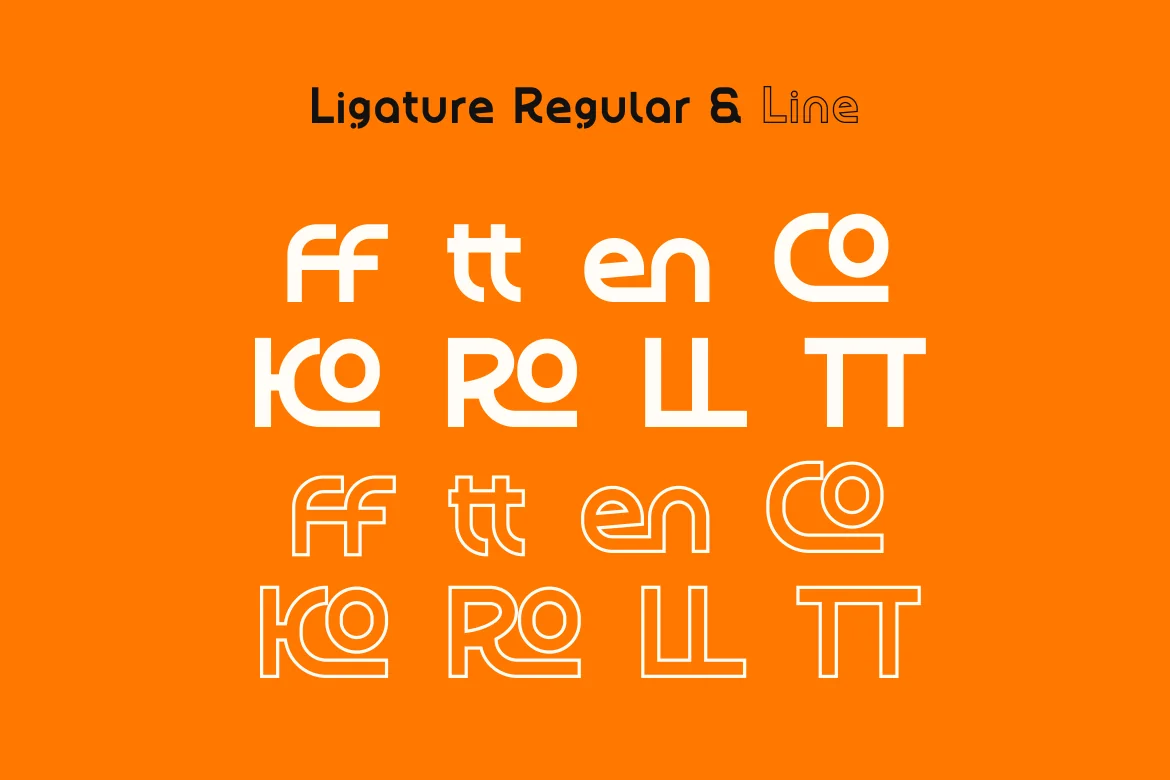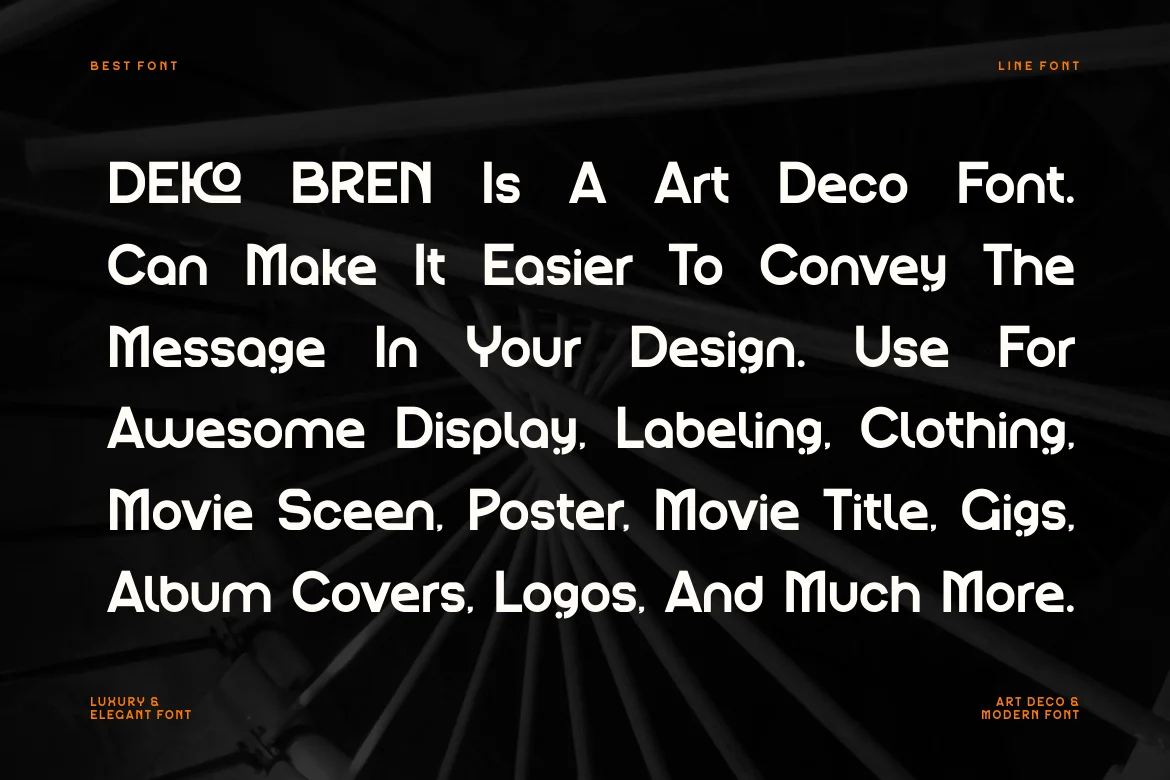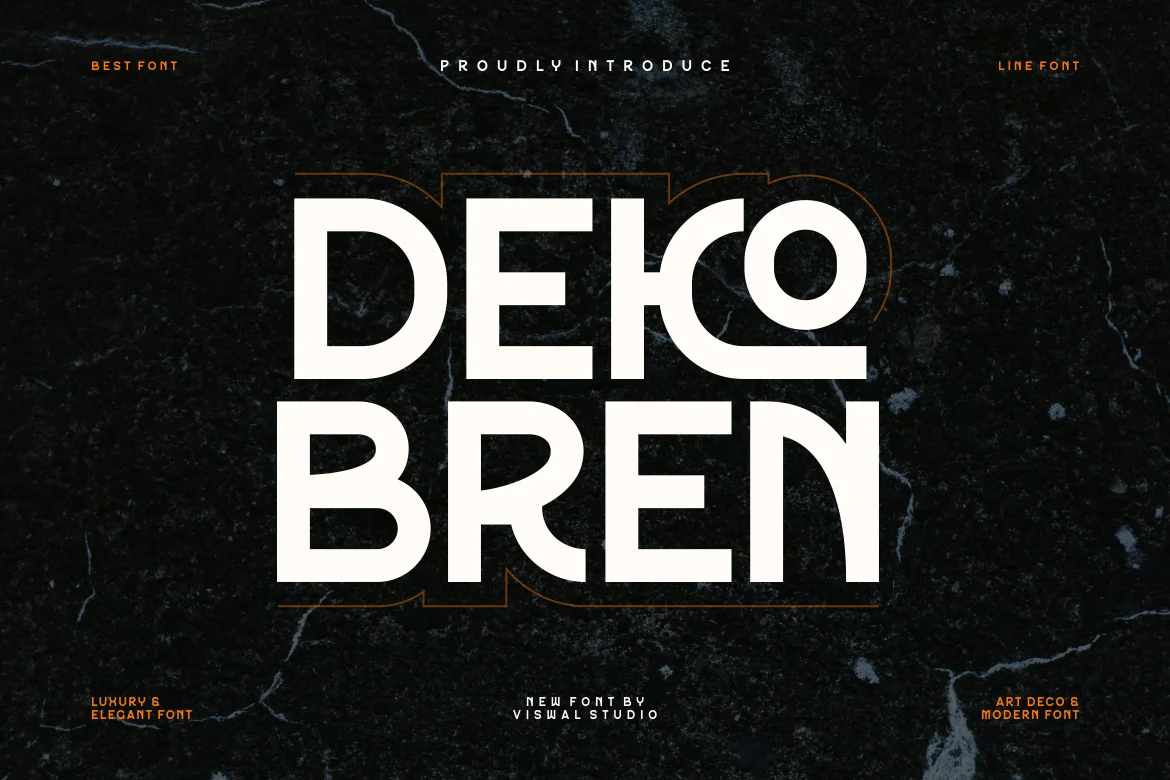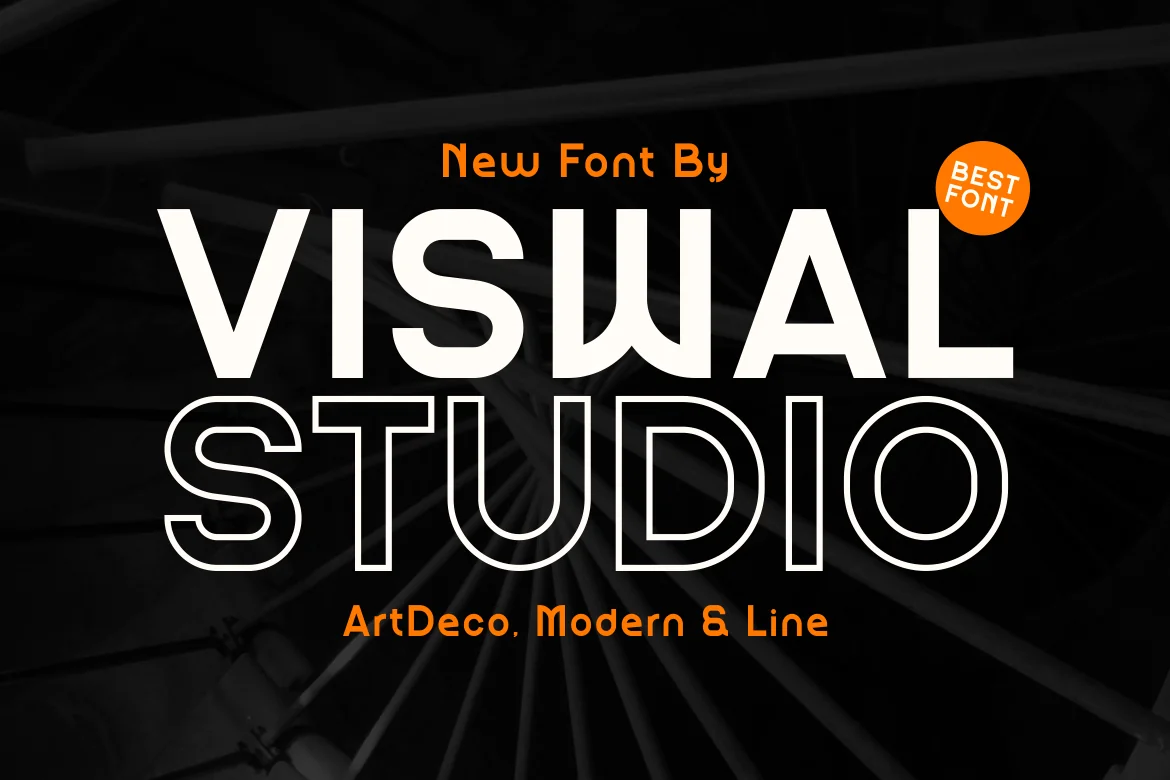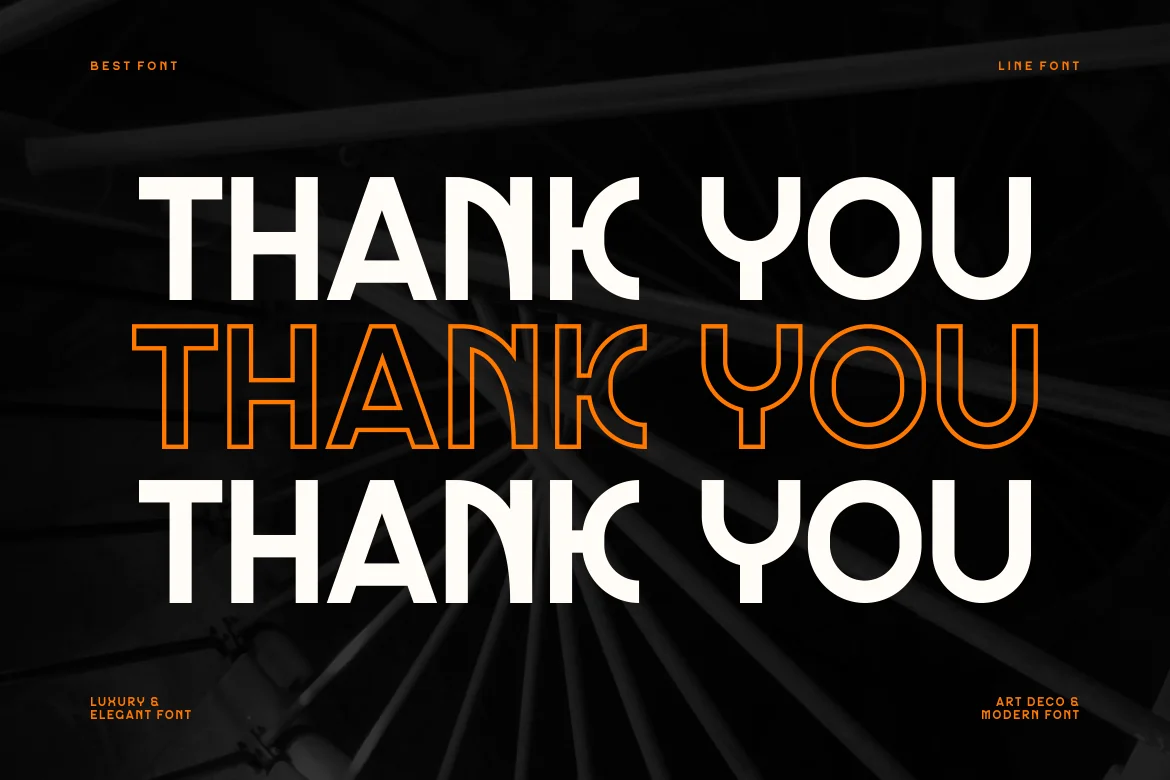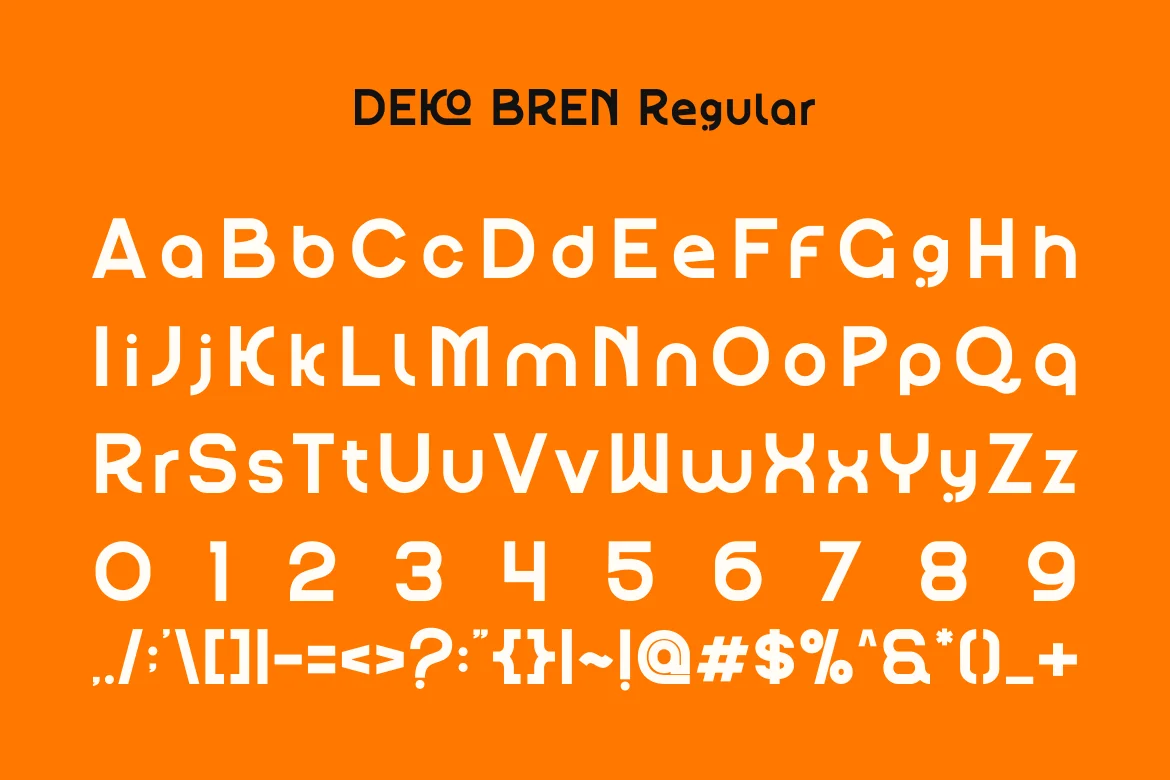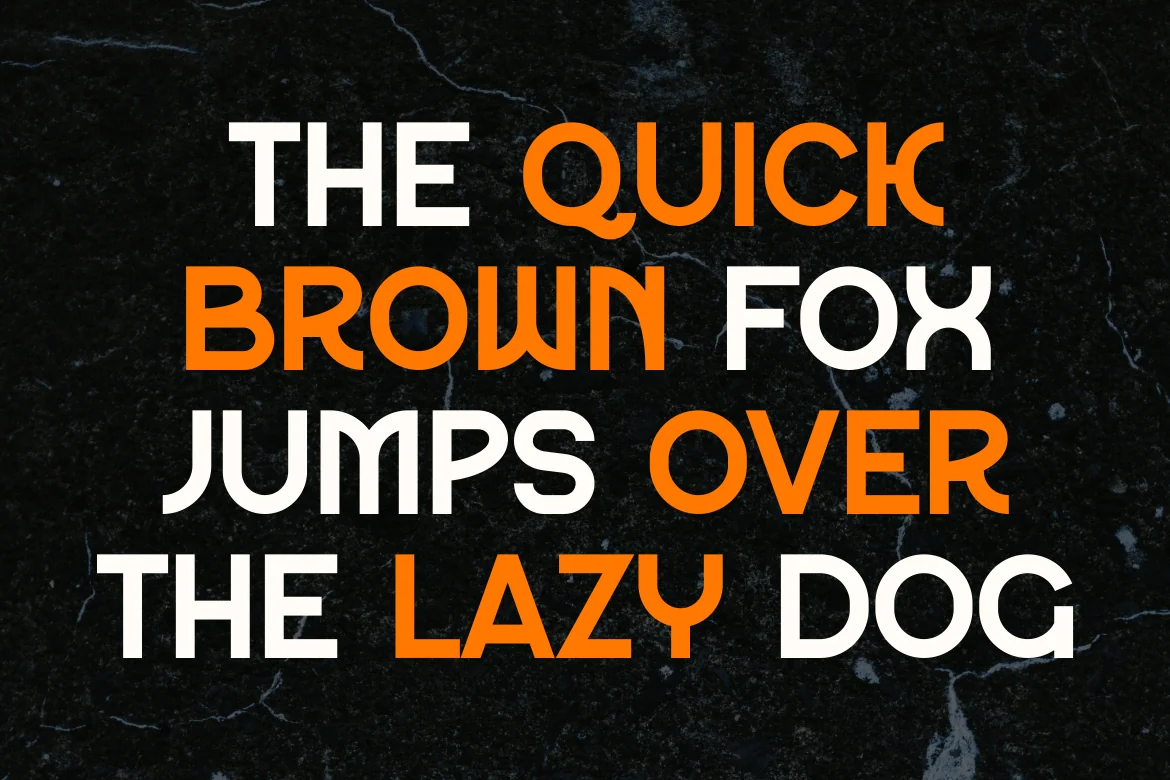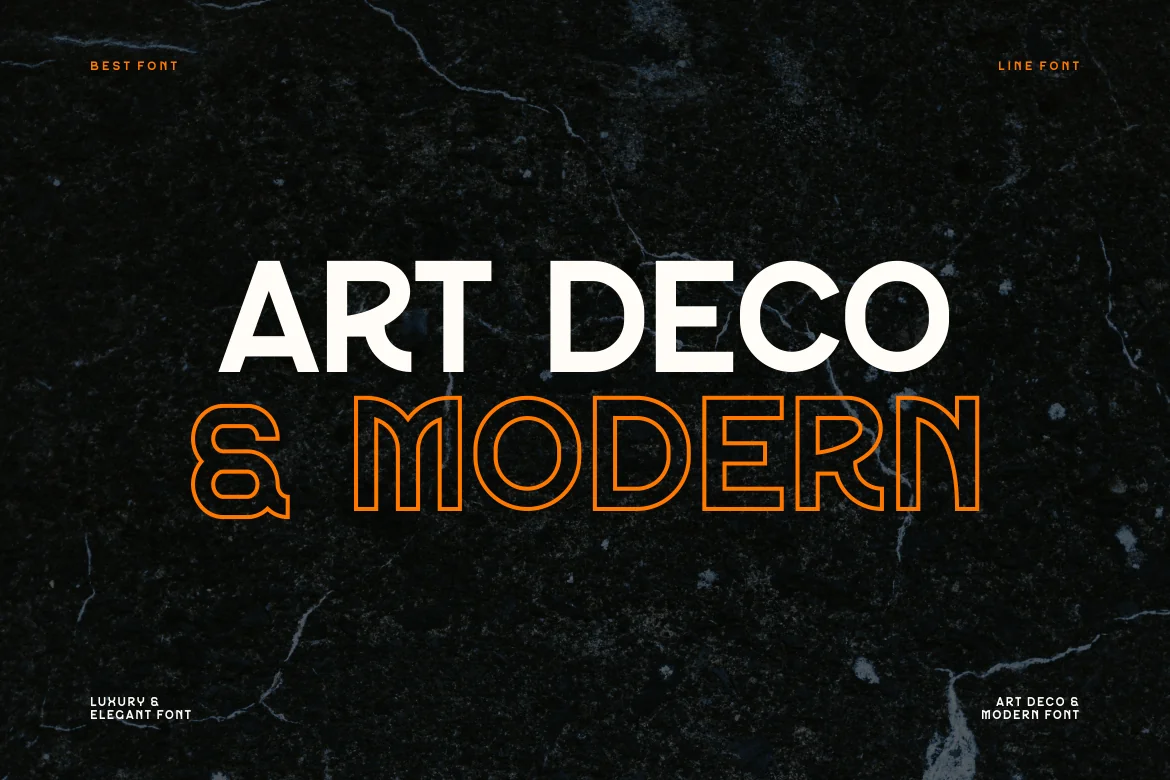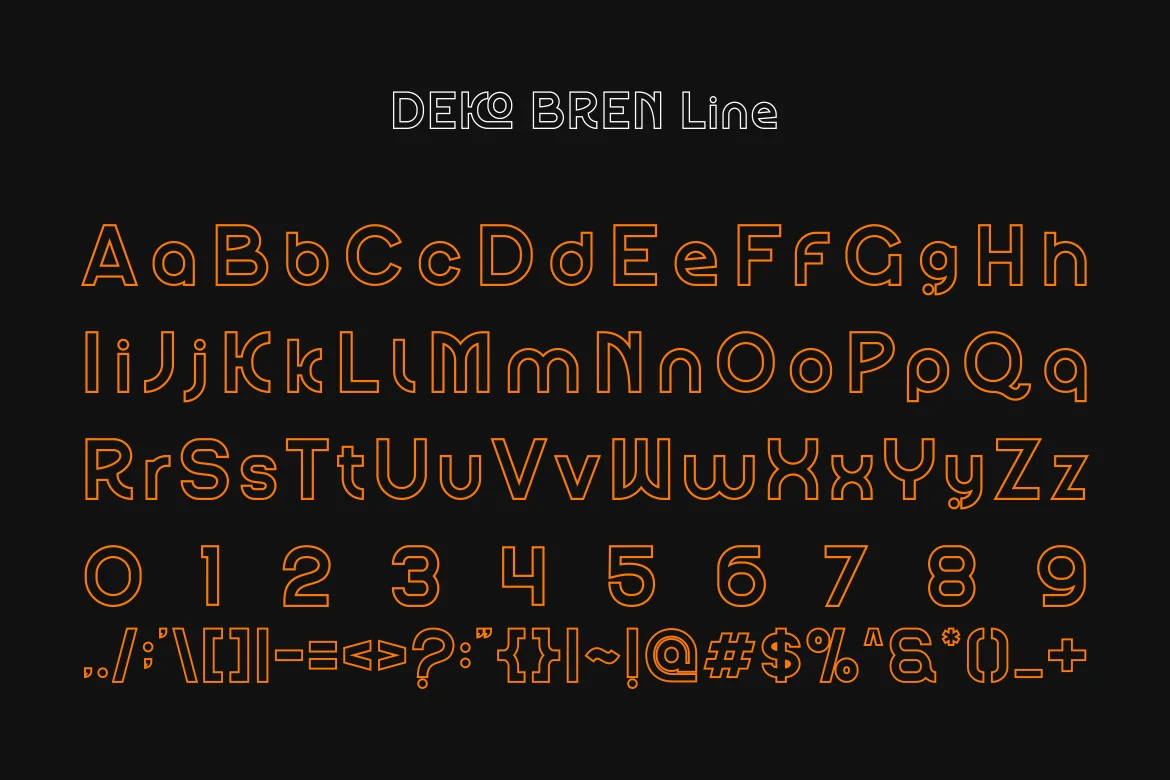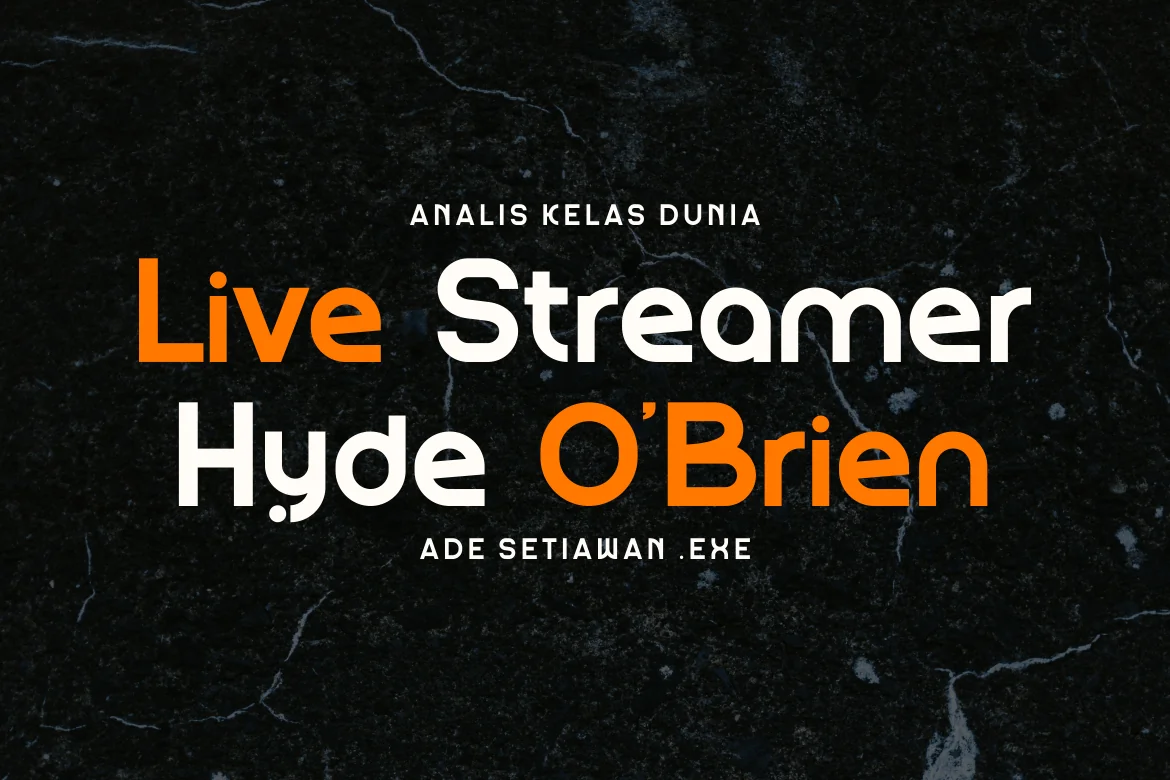
Deko Bren – Modern & Elegant Font
Presenting Deko Bren – Font is suitable for badge, labels, logo, branding, magazine, poster and etc. Our fonts have Uppercase & Lowercase, Numeral & Punctuation, Multilingual support and Opentype Features. For Amazing designs you can mix with other fonts as a complement.